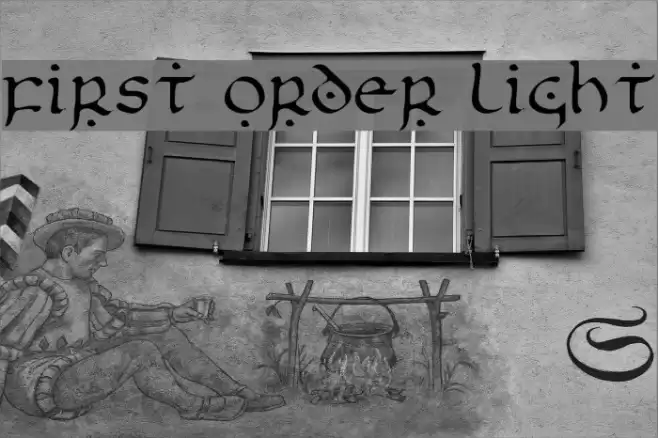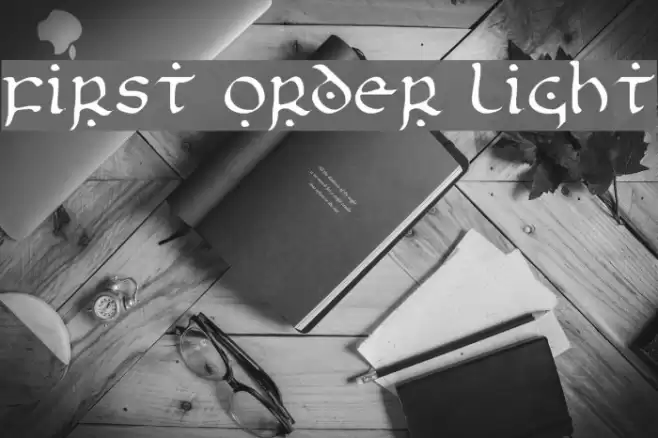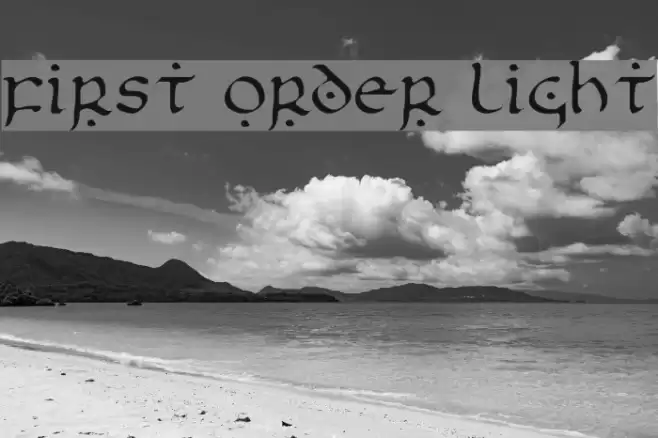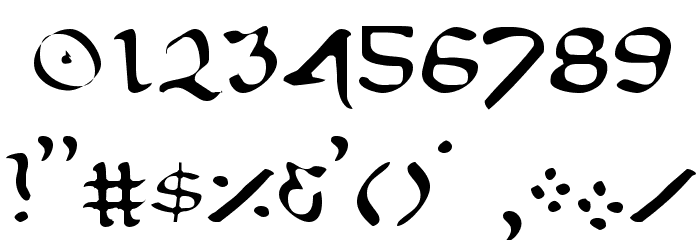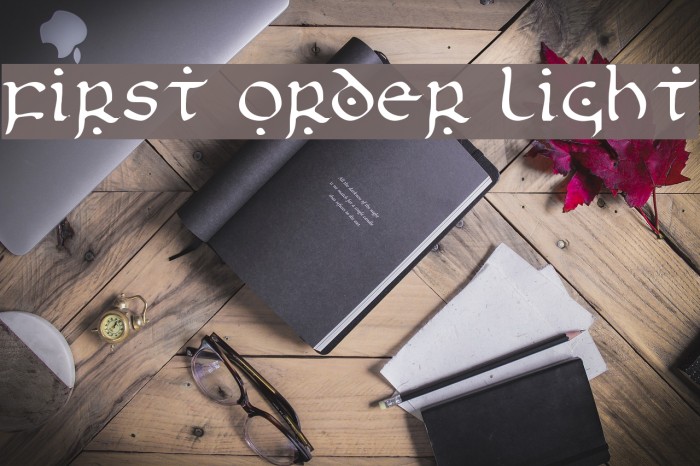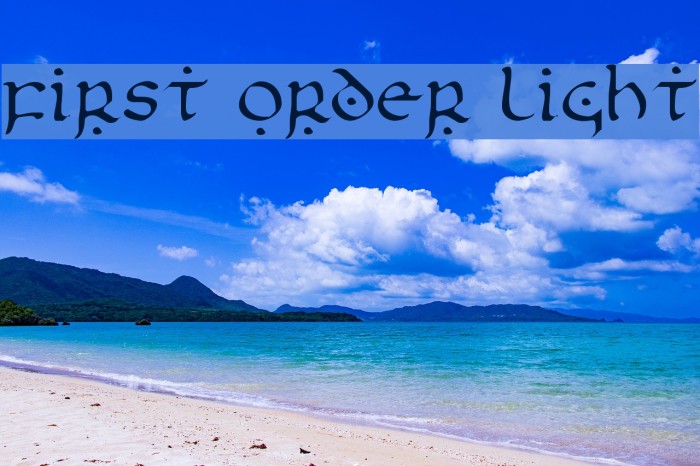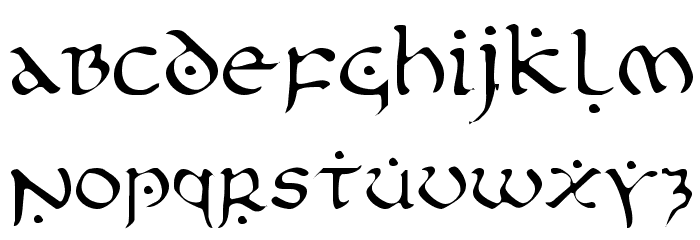
First Order Light Font
First Order Light Description
This font features a unique and artistic style, reminiscent of medieval calligraphy with a modern twist. The characters are adorned with distinctive flourishes and dots, giving them an ornamental and decorative appearance. The uppercase and lowercase letters maintain a consistent design, with sharp edges and curves that create a sense of elegance and sophistication. The numerals are bold and clear, matching the overall aesthetic of the font. Special characters are creatively designed, adding to the font's versatility and charm. This font is perfect for projects that require a touch of historical or fantasy elements, while still maintaining readability.
An artistic, medieval-inspired font with decorative flourishes and modern elegance from Serif fonts.
- Proposed Projects: Ideal for fantasy book covers, historical themed posters, game design, and decorative invitations.
- Use Case: Headlines, Logos, Decorative text